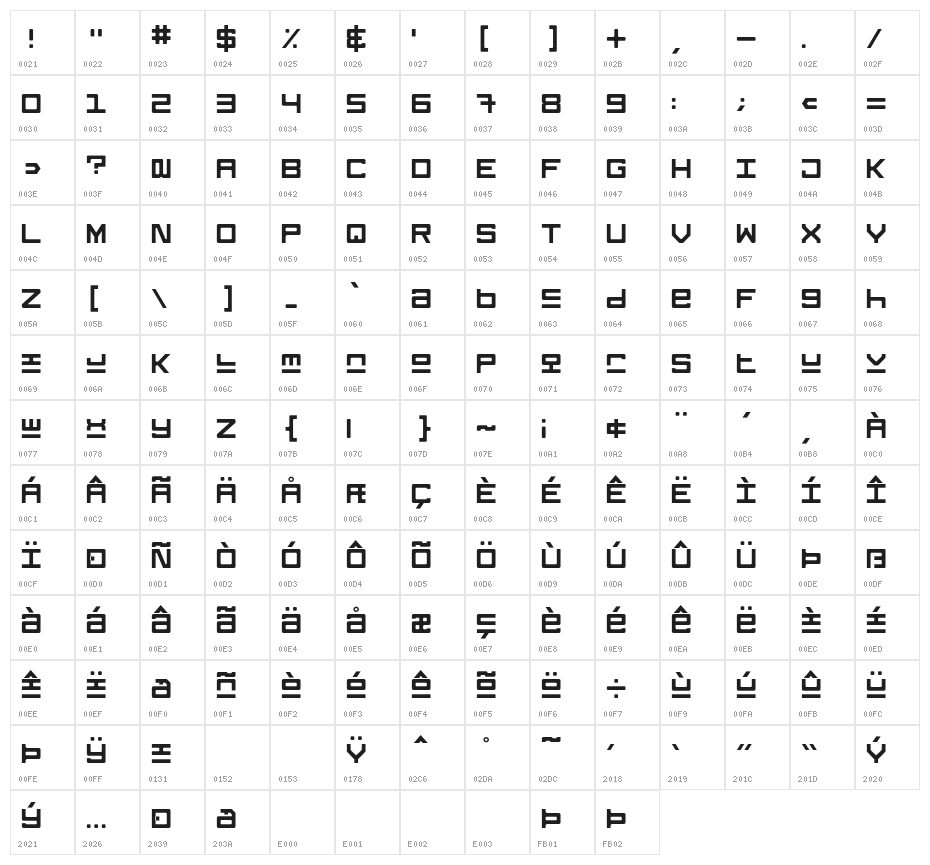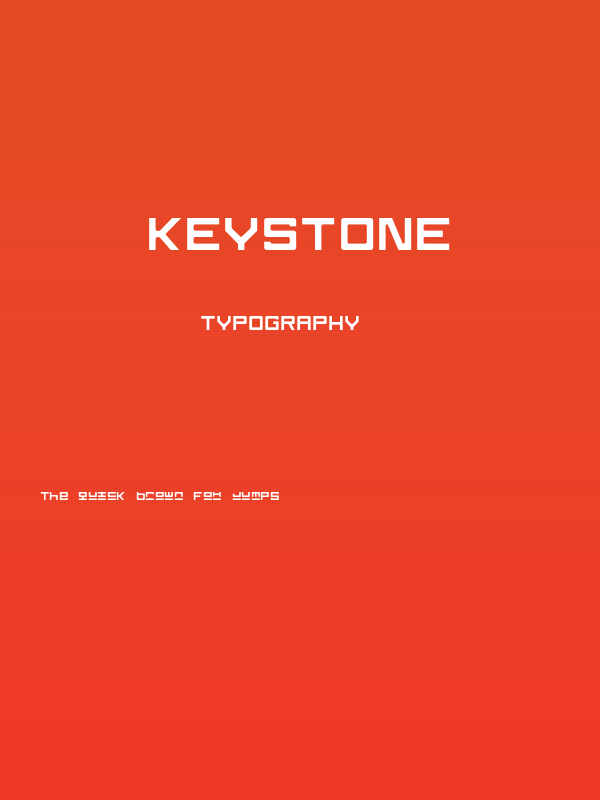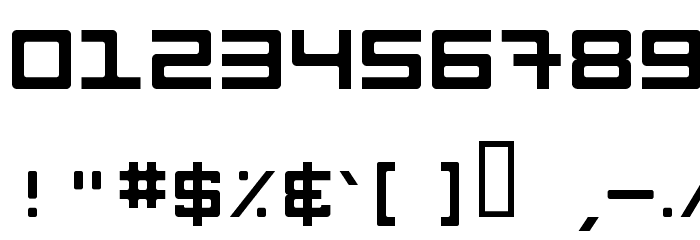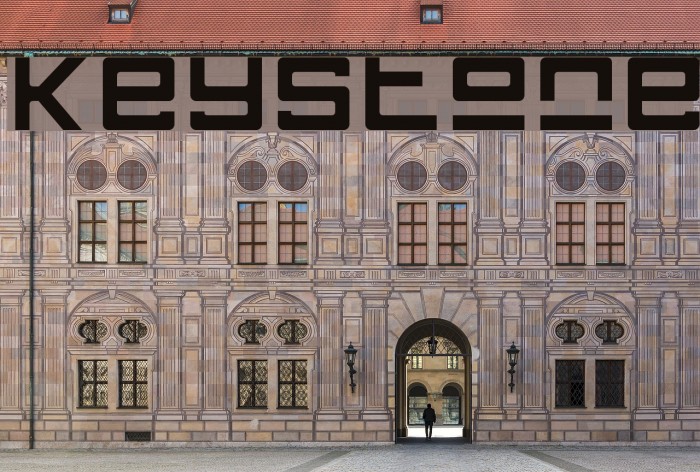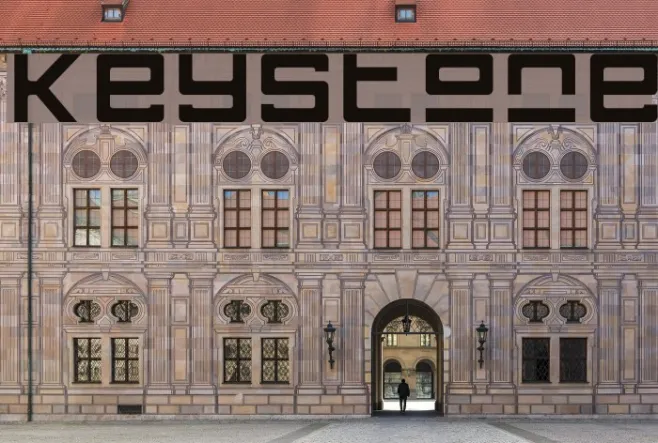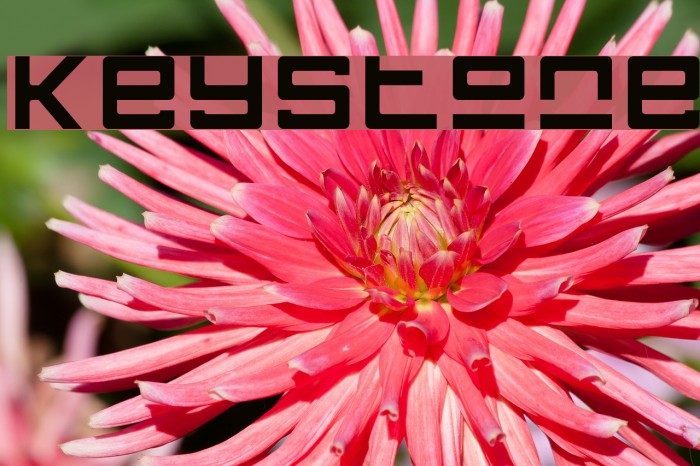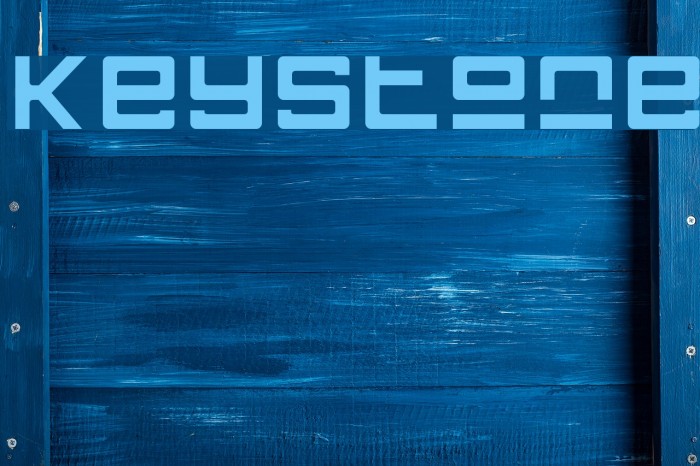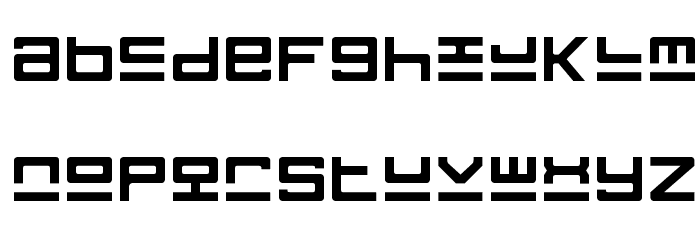
Keystone Font
Keystone Description
This font features a bold, geometric design with a modern and futuristic aesthetic. The characters are constructed with thick, uniform strokes, creating a strong and impactful presence. The uppercase and lowercase letters share a consistent style, with angular edges and a blocky appearance. The numerals and special characters maintain the same boldness and geometric structure, ensuring a cohesive look across all glyphs. This font's distinct style makes it ideal for projects that require a contemporary and assertive visual identity.